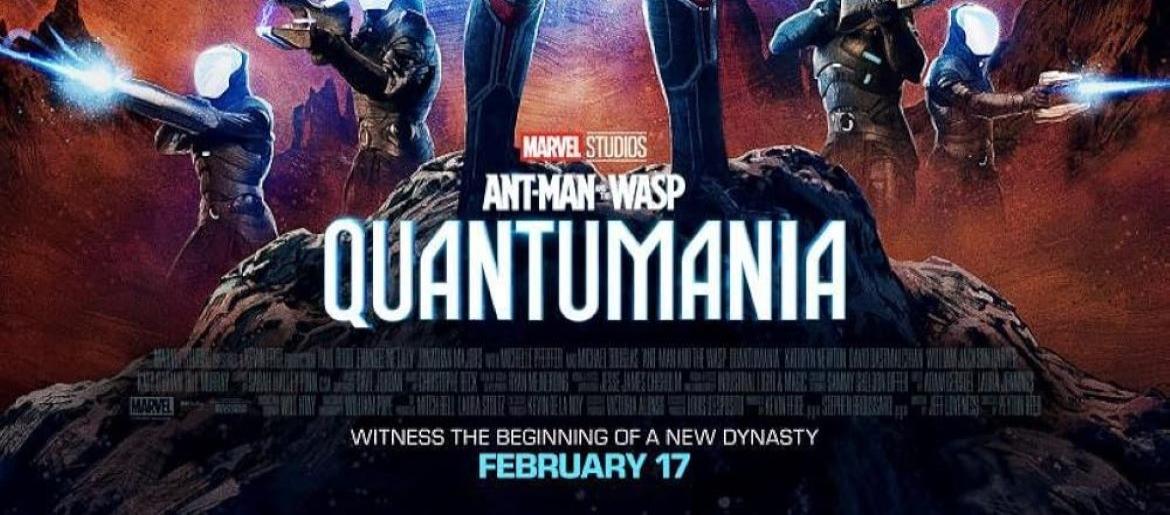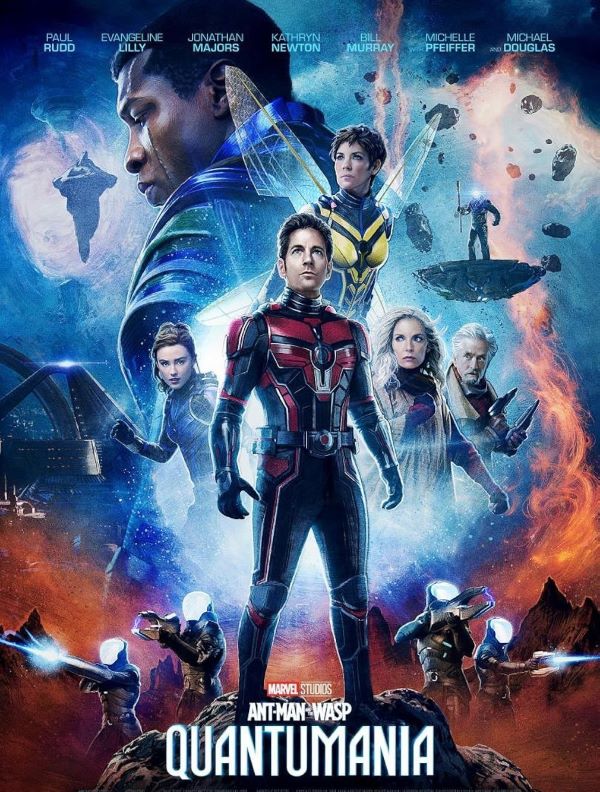
Quantumania Font
What Font is Quantumania?
The Quantumania Font used for the title of Ant‑Man and the Wasp: Quantumania is a stylized, custom-designed typeface. A close match available for download is Quanticoverse — a display sans-serif font inspired by the title’s bold, condensed form and futuristic aesthetic.
About Ant-Man and the Wasp: Quantumania
Ant-Man and the Wasp: Quantumania (2023) is a superhero film from the Marvel Studios universe. It follows Scott Lang (Ant-Man) and Hope van Dyne (the Wasp) as they enter the Quantum Realm and face new threats and revelations. The visual identity of the film, including its typography, emphasizes scale, tension and bold adventure—qualities reflected in the condensed, strong-weight letterforms used in the title design.